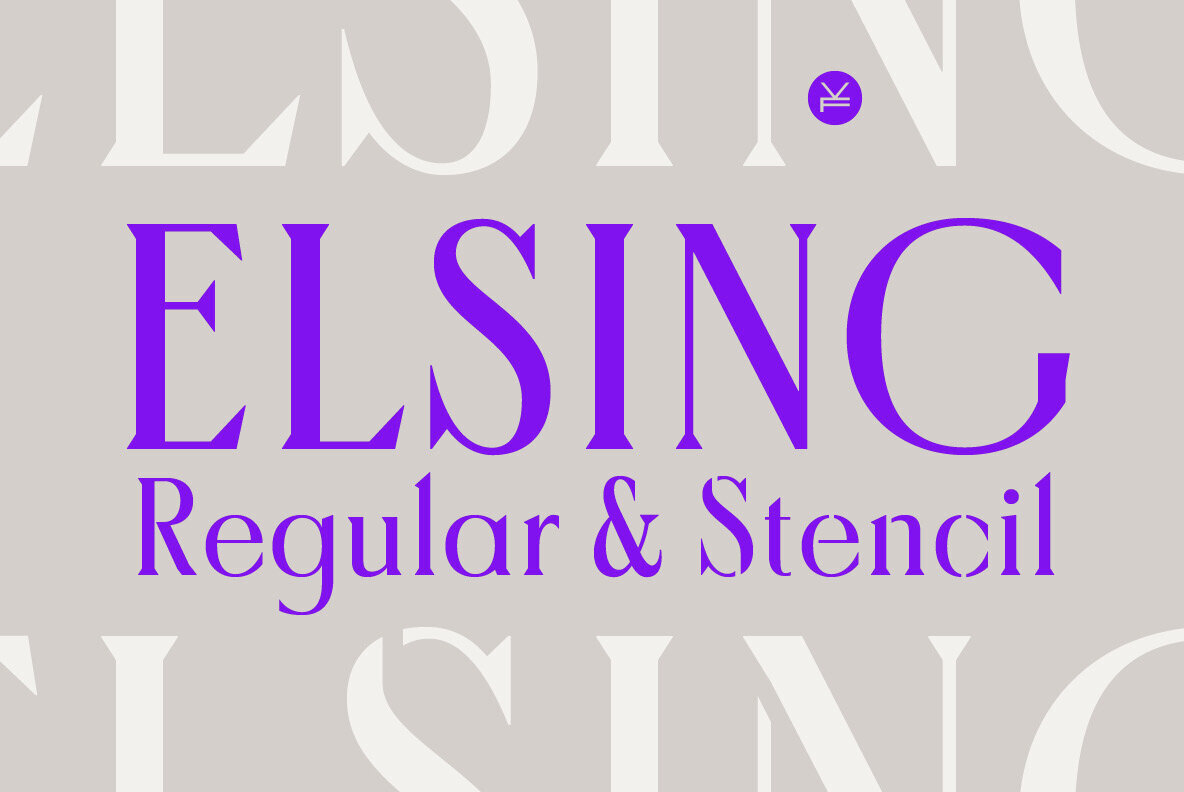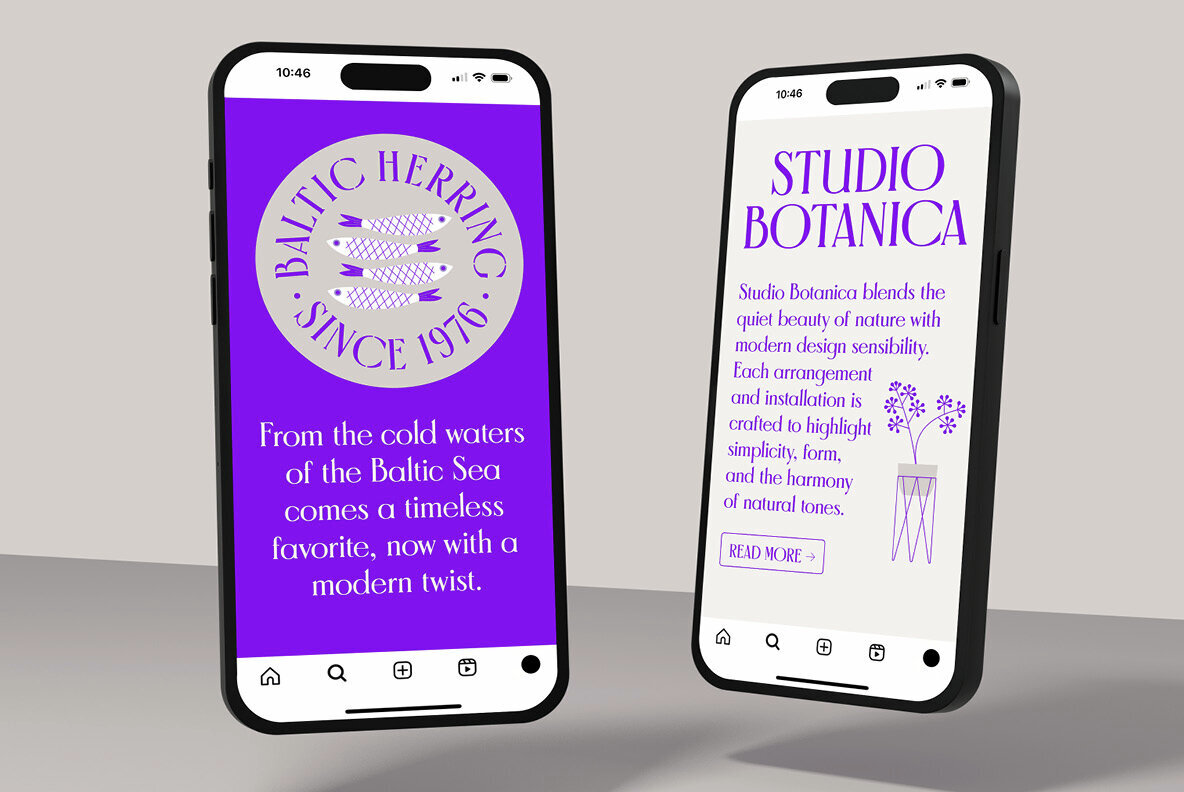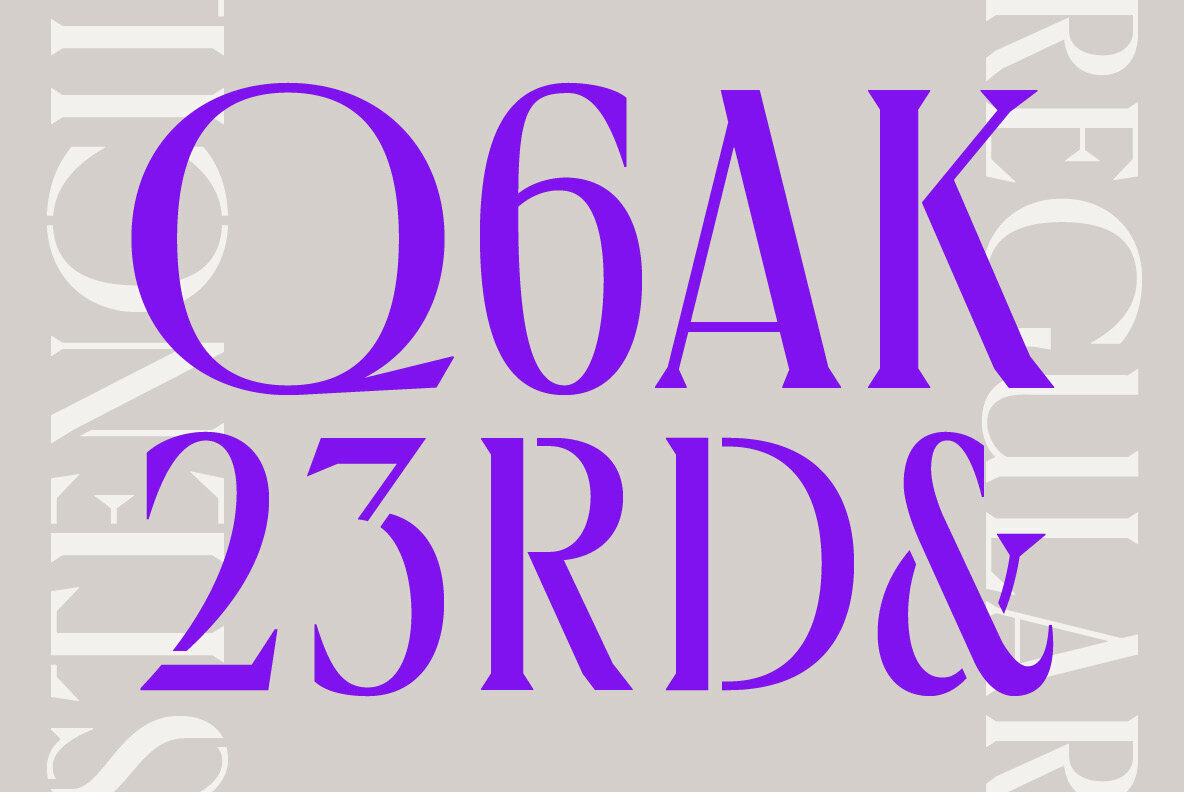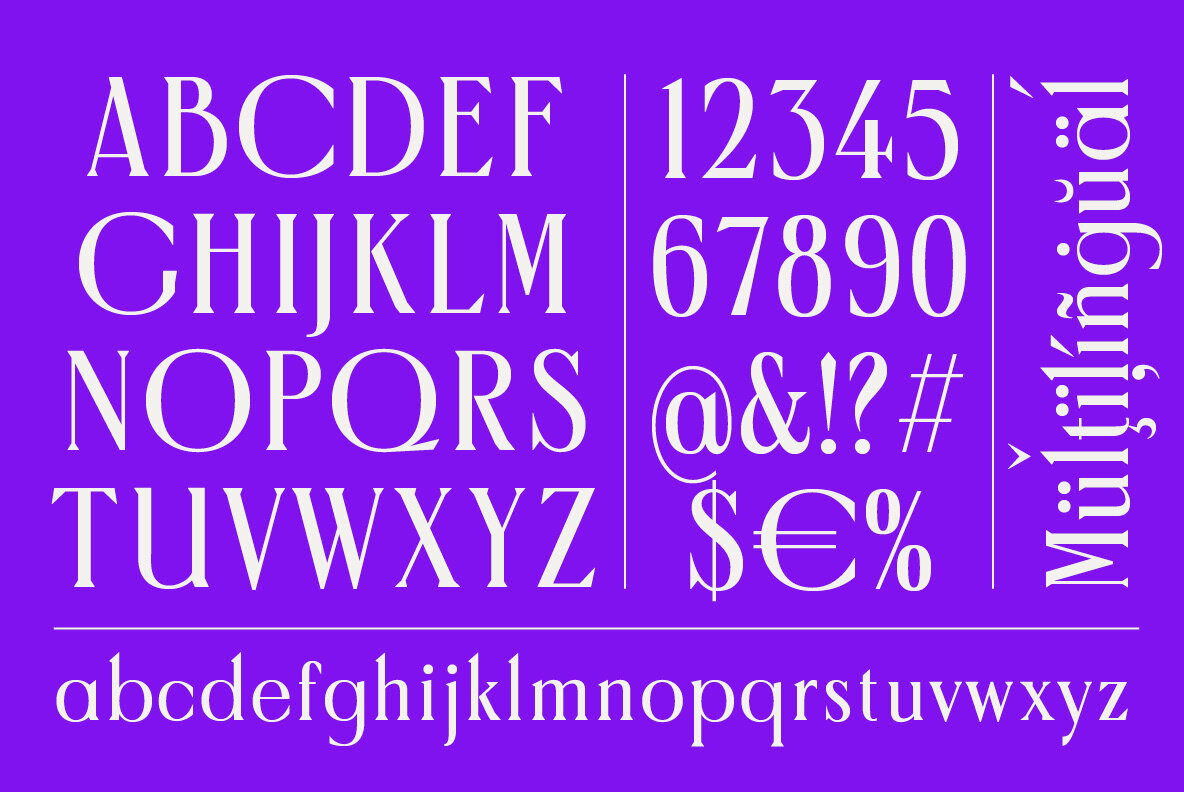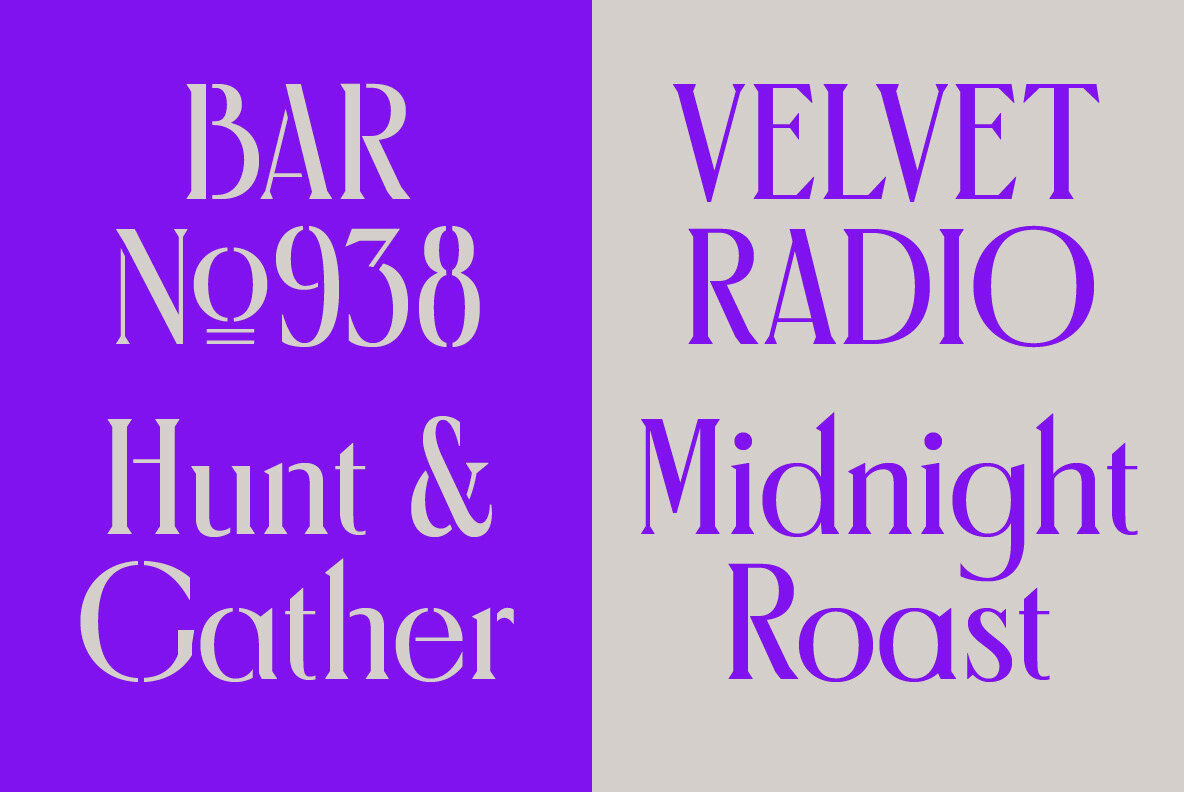
Elsing Font
Elsing Regular
Elsing Stencil
Elsing is designed for those who appreciate both tradition and forward-thinking style. Drawing from classical proportions, this typeface balances refined serifs and strong contrast, delivering a sense of timeless elegance suited for editorial covers, packaging, and distinctive visual identities. The Stencil style brings a bold, architectural touch—reimagining familiar forms with clarity and impact. With over 390 glyphs and extensive multilingual support, Elsing performs effortlessly across print and digital media. Its versatility ensures polished, readable headlines and poised paragraphs that stand out while maintaining a sophisticated tone.Elsing: Classic Heritage with a Contemporary Edge